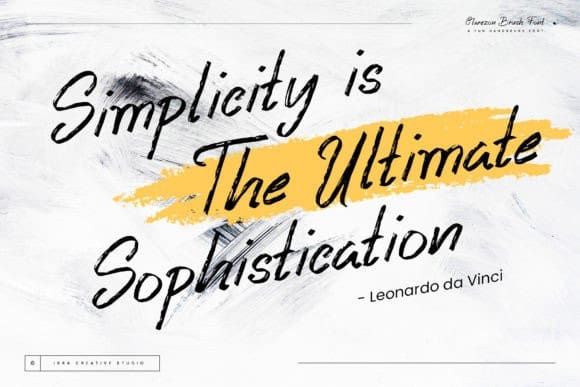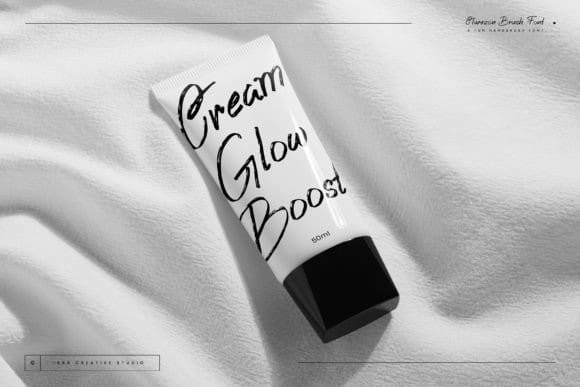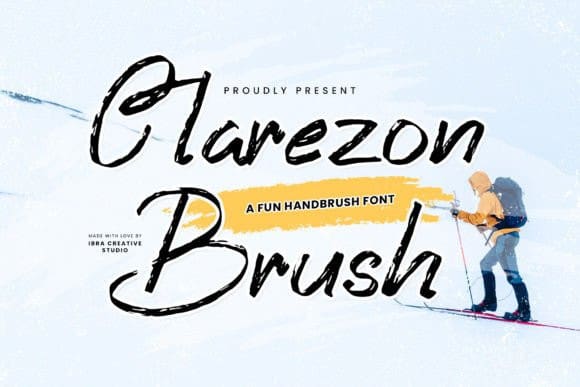
Clarezon Brush Font
Clarezon Brush Font, a playful and dynamic handbrush font, is a lively embodiment of creativity and spontaneity. With its whimsical strokes and energetic flair, Clarezon Brush injects a sense of fun and vibrancy into any design project. The font’s exuberant letterforms dance across the page, mimicking the free-spirited strokes of a handbrush, making it a delightful choice for projects that seek a touch of casual charm.